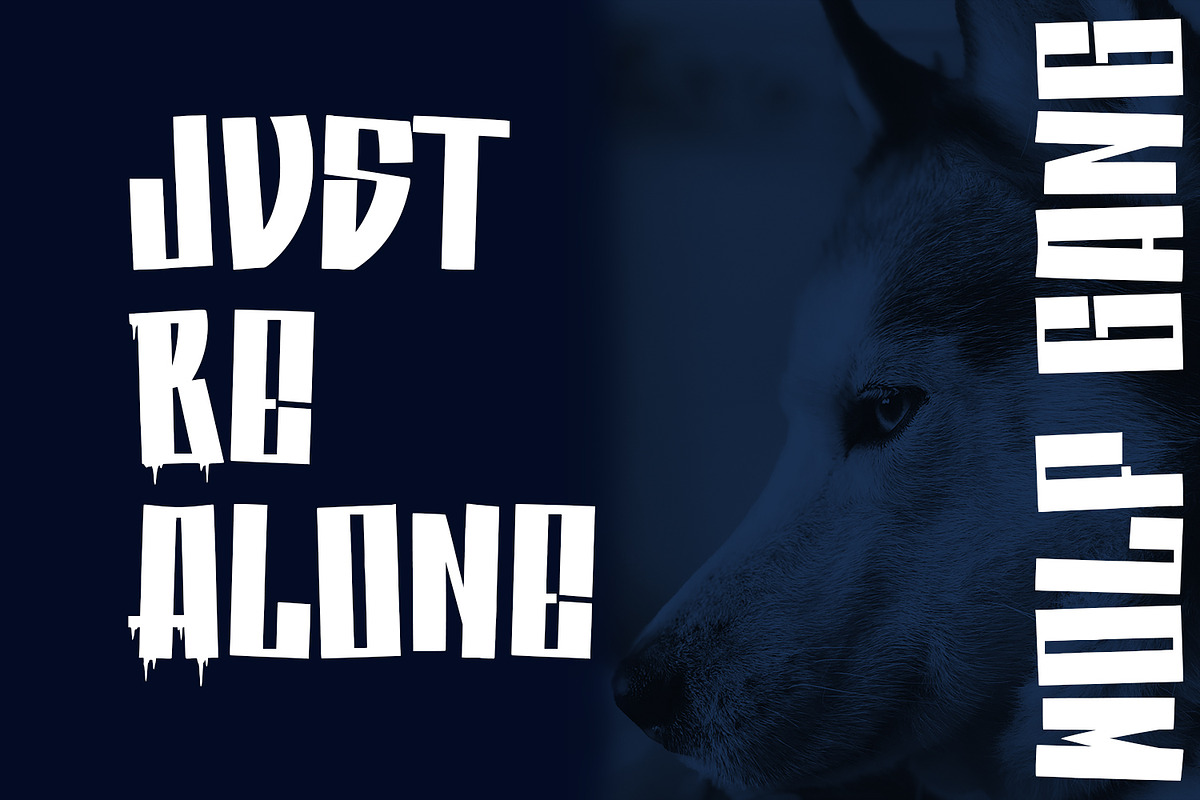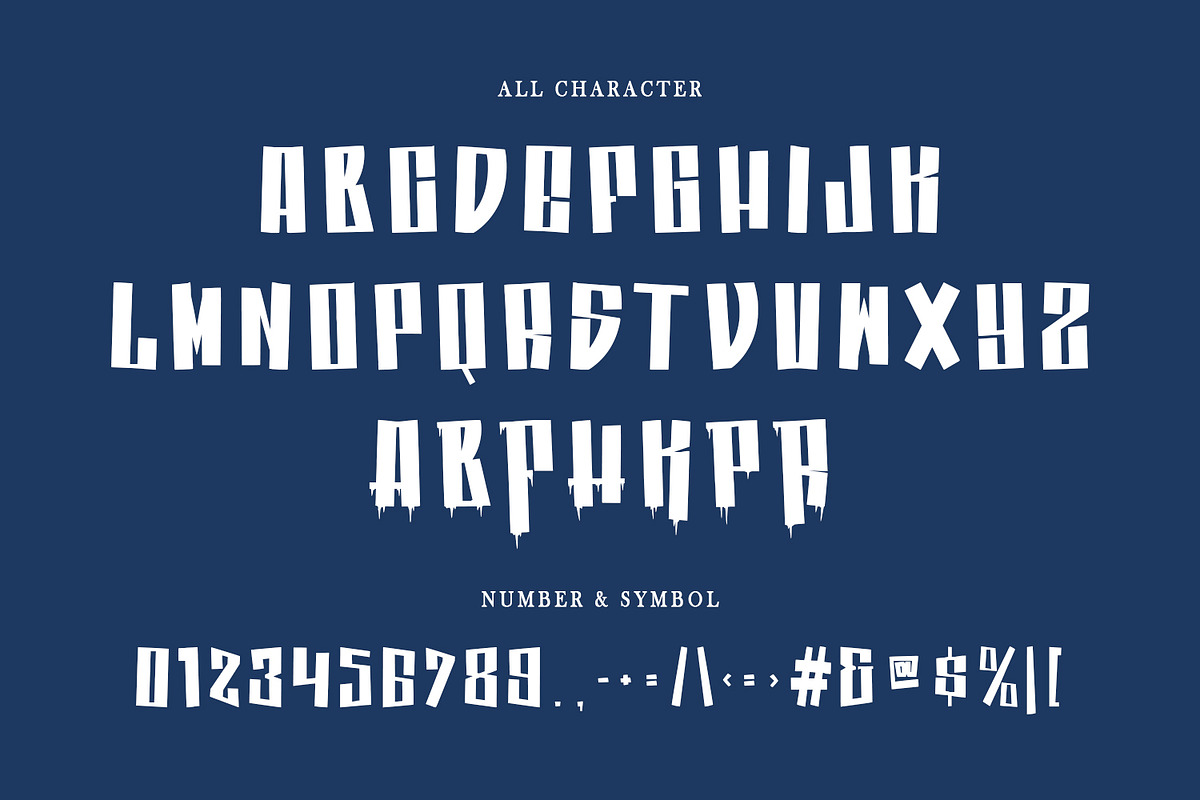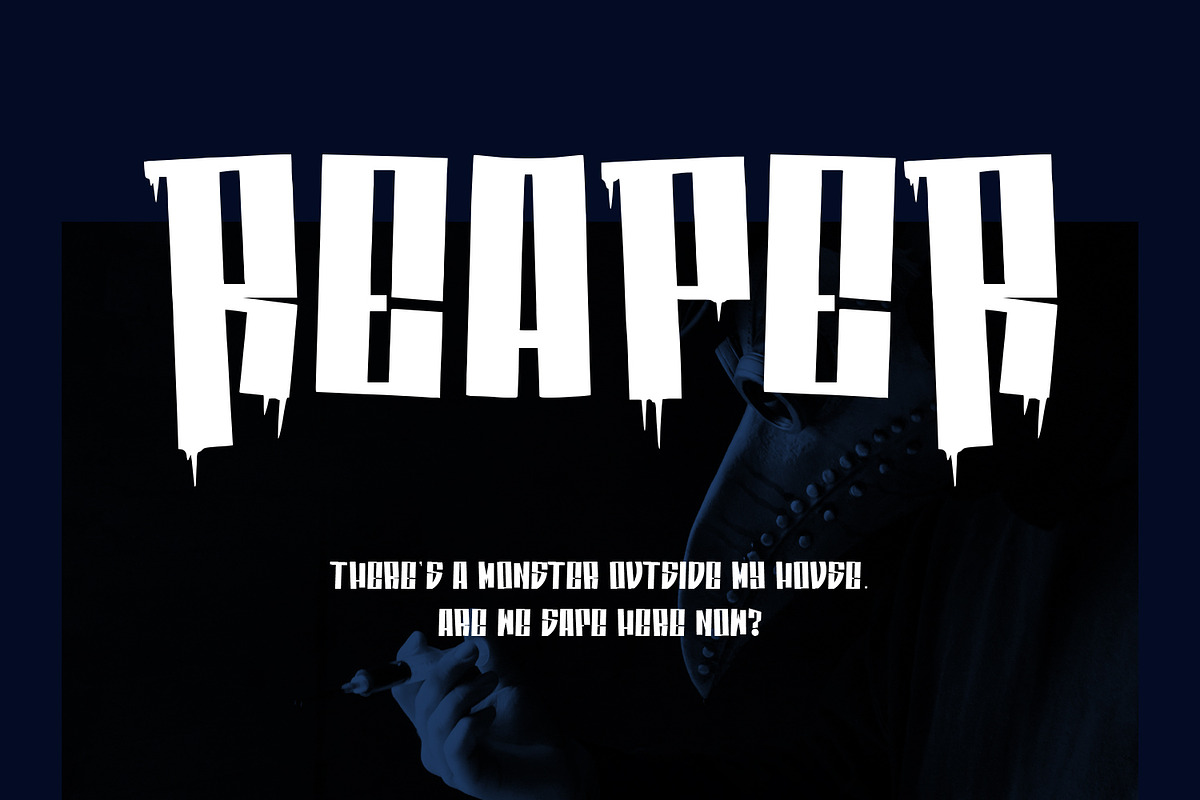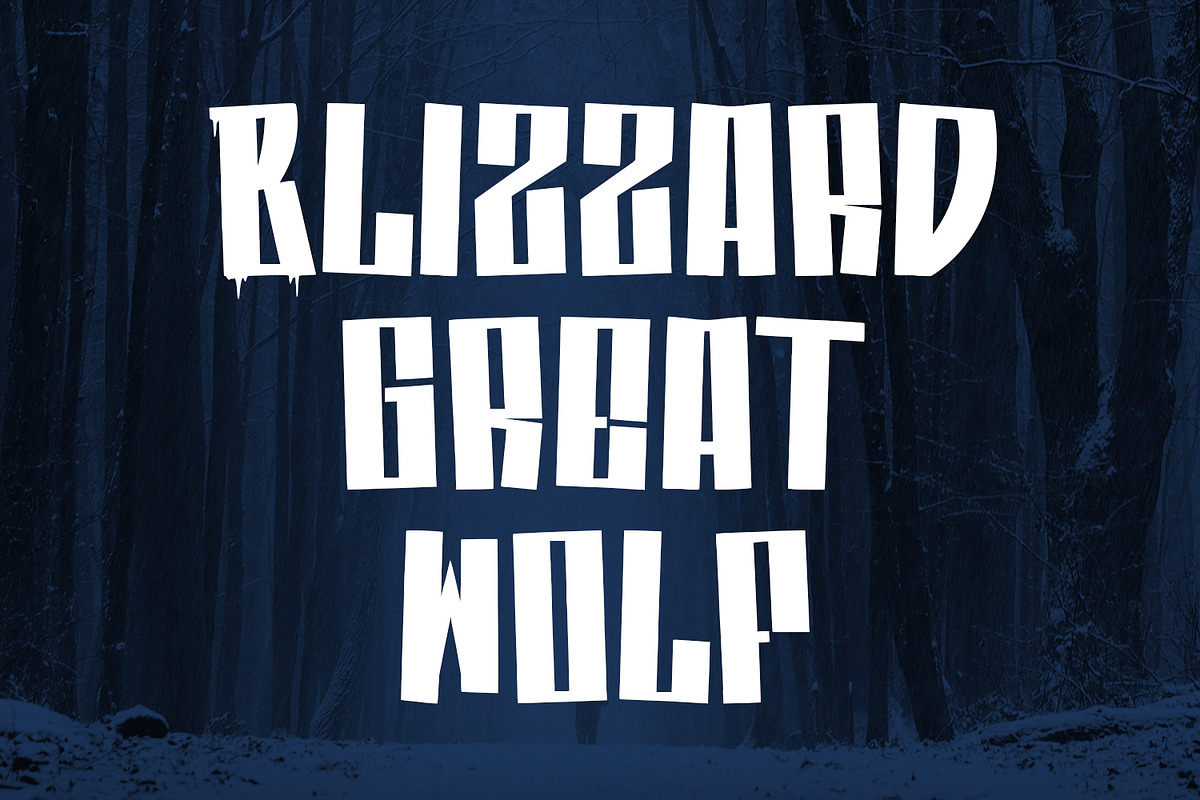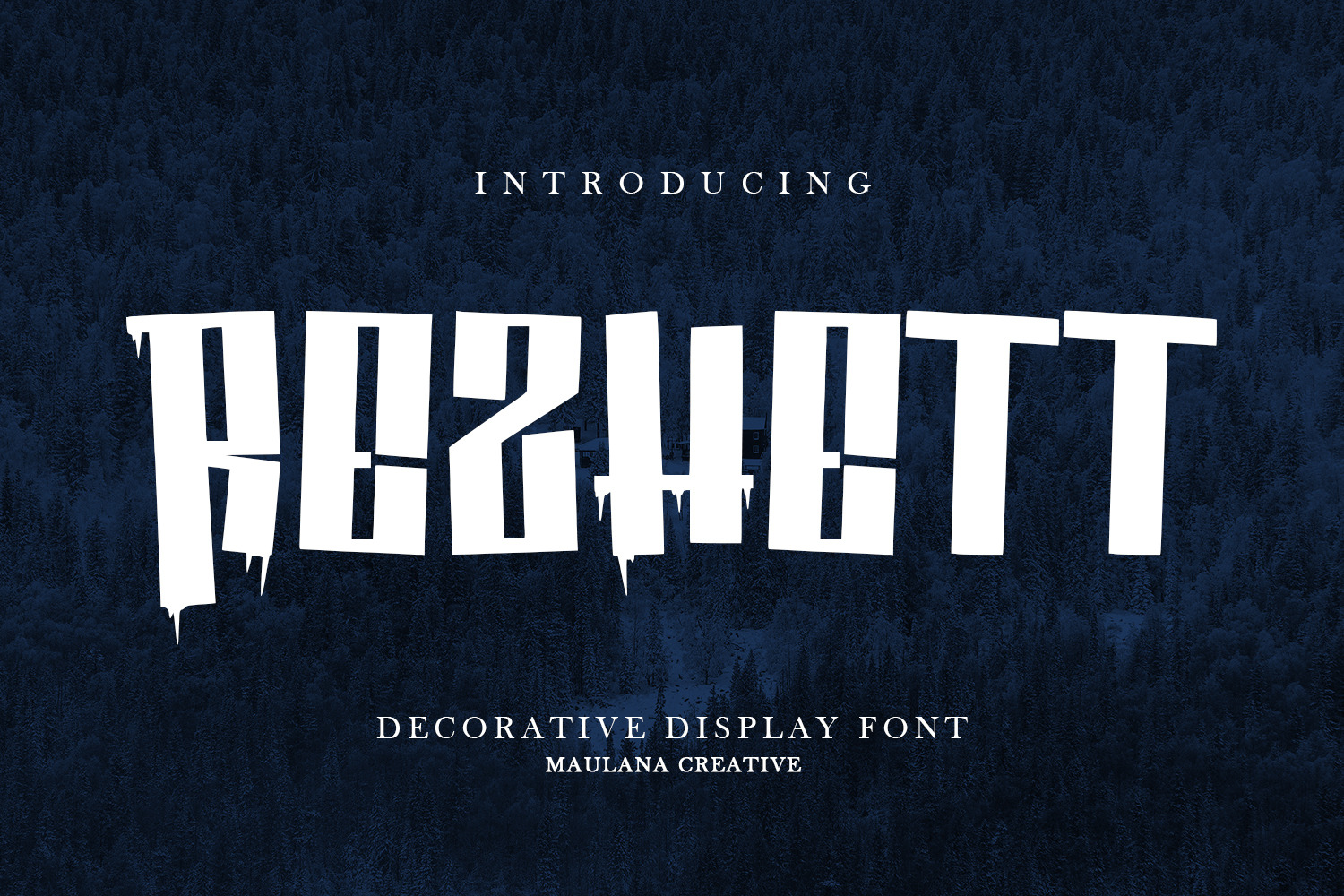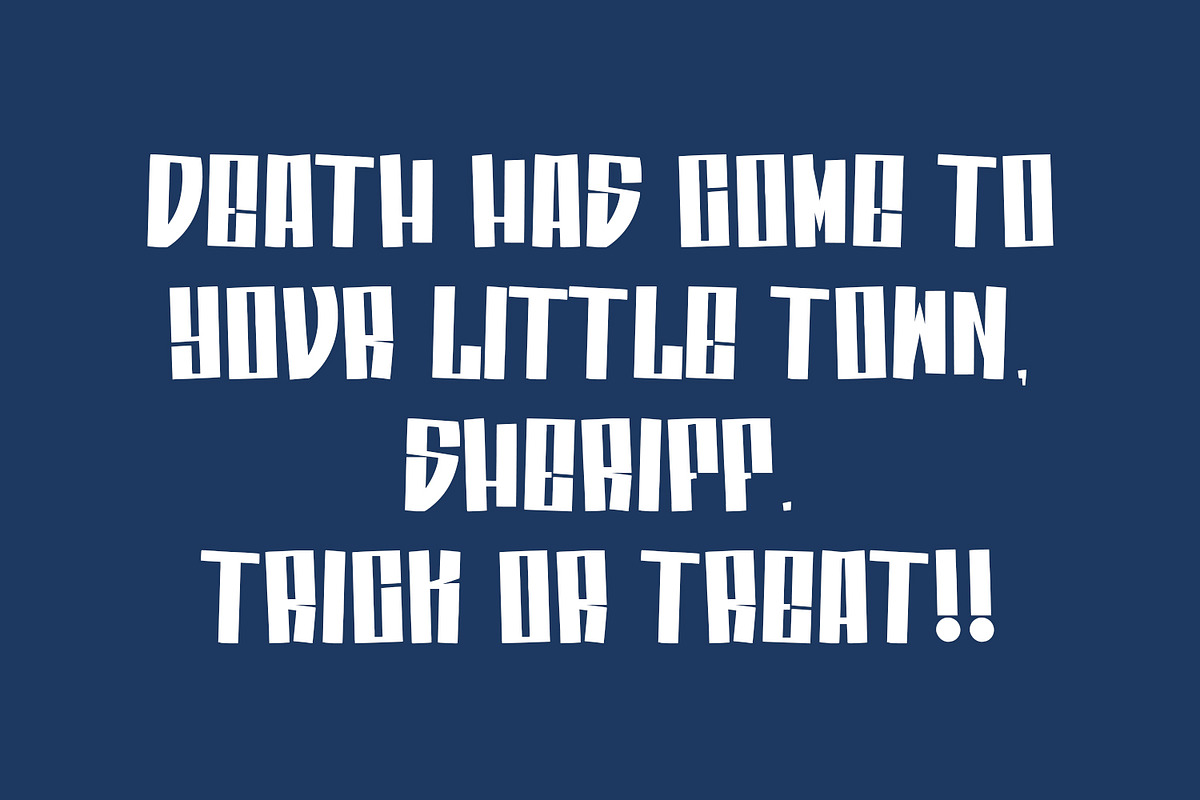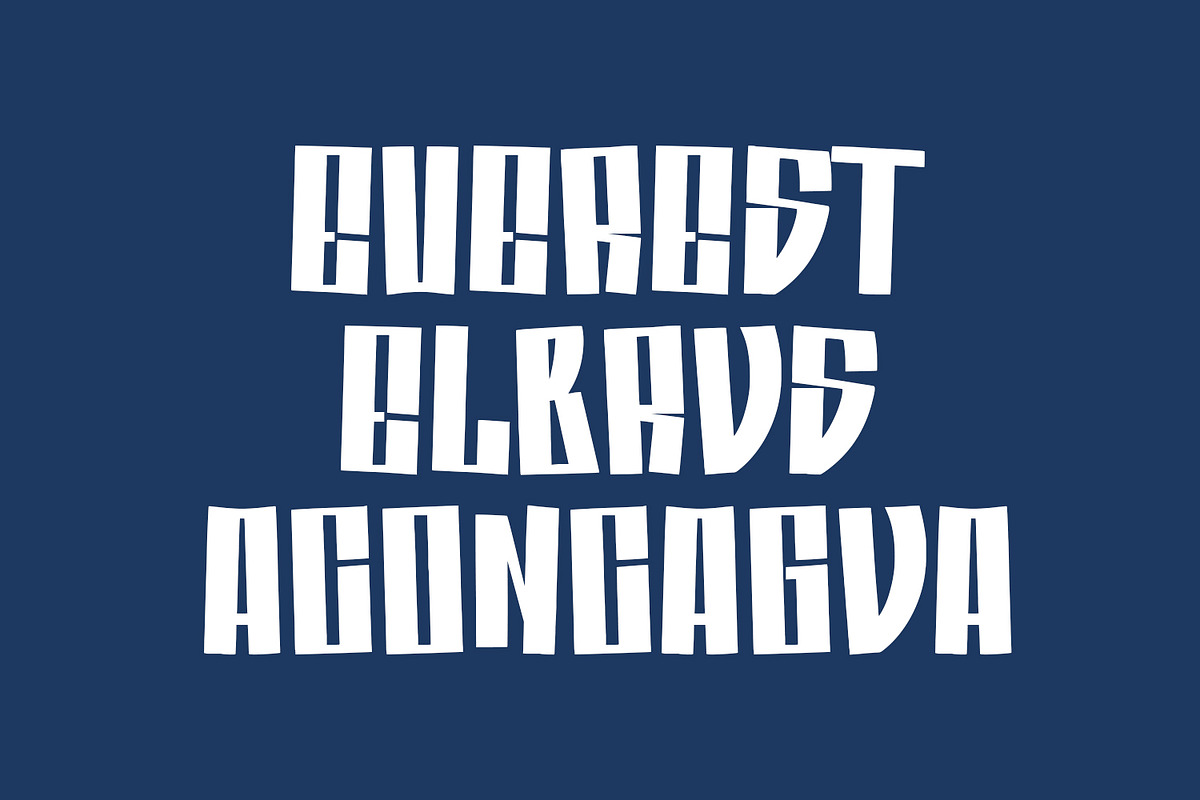
Rezhett Decorative Display Font
Rezhett Decorative Display Font.
Rezhett decorative display font. Heavy stroke, vintage character with alternates. To give you an extra creative work. Rezhett display font support multilingual language. This font is good for logo design, Social media, Movie Titles, Books Titles, a short text even a long text letter and good for your secondary text font with script or serif. Make a stunning work with Rezhett font.